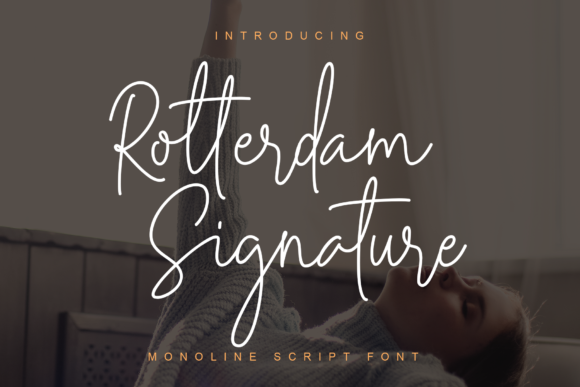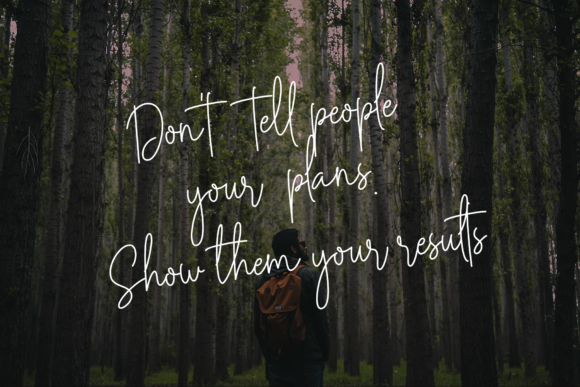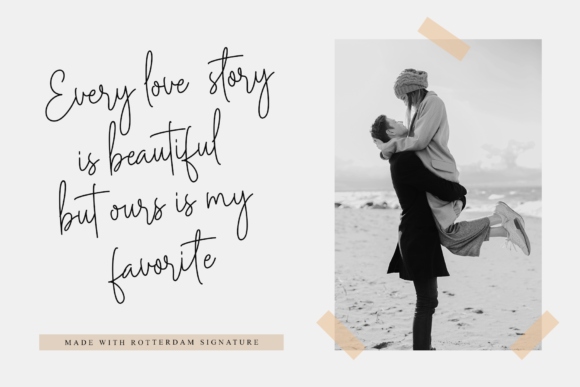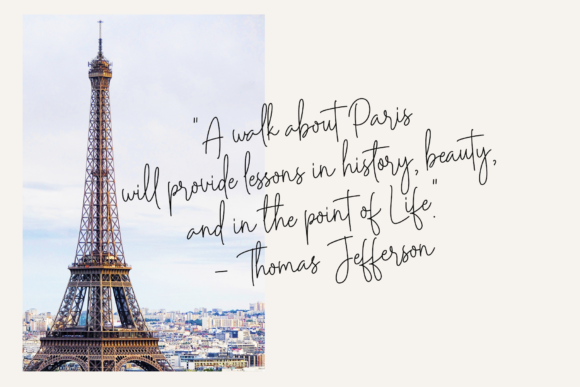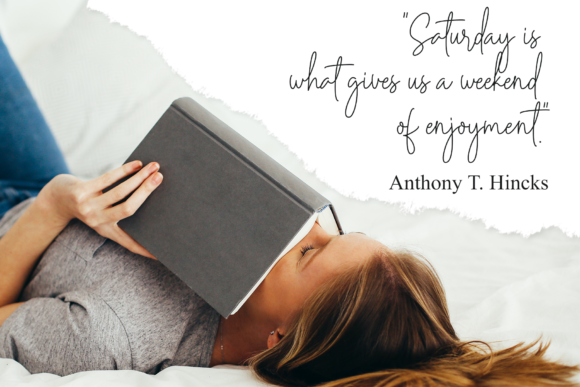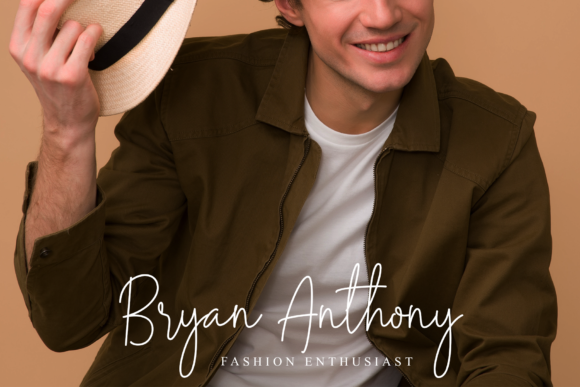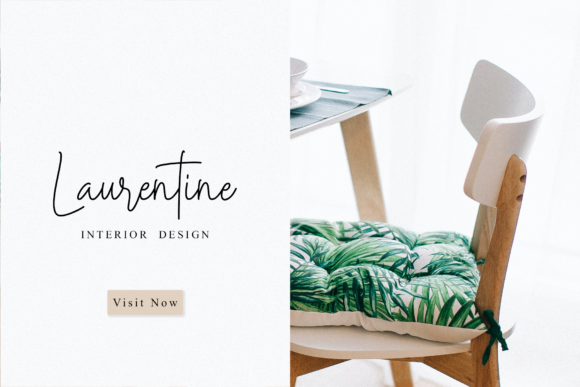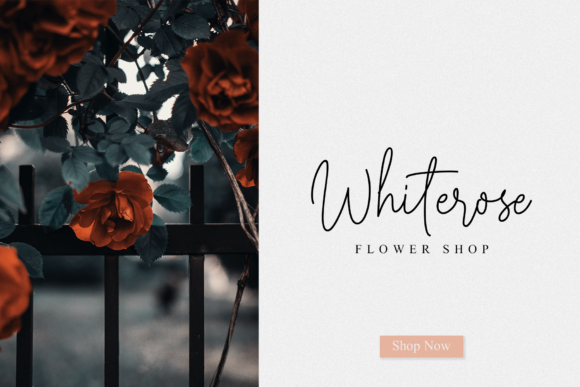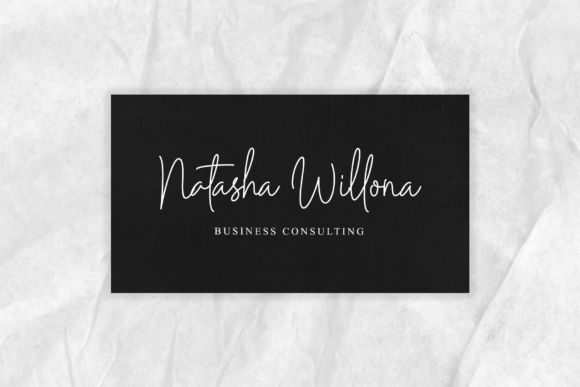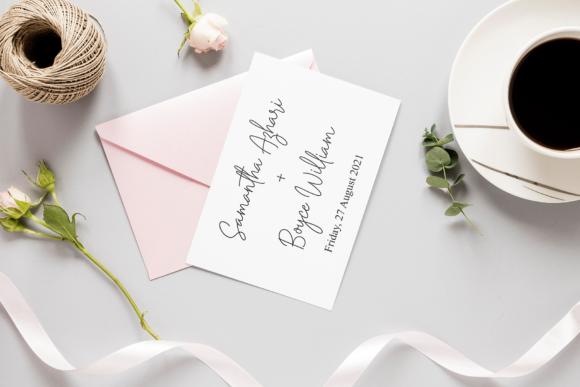
Rotterdam Signature Font
About Rotterdam Signature Font
Rotterdam Signature is a handwritten signature script with a natural & stylish flow. This collection of scripts is perfect for personal branding, wedding invitations, advertising and much more!
This font is PUA encoded which means you can access all of the glyphs and swashes with ease! It also features a wealth of special features including alternate glyphs and ligatures.